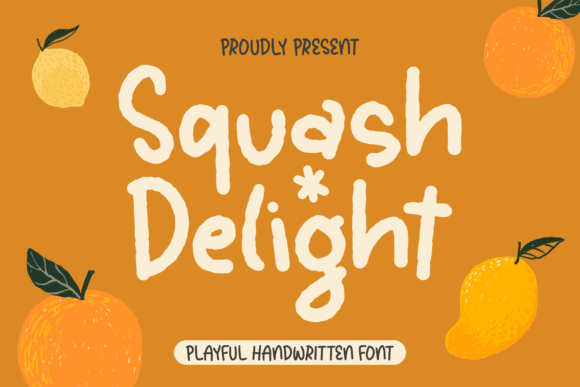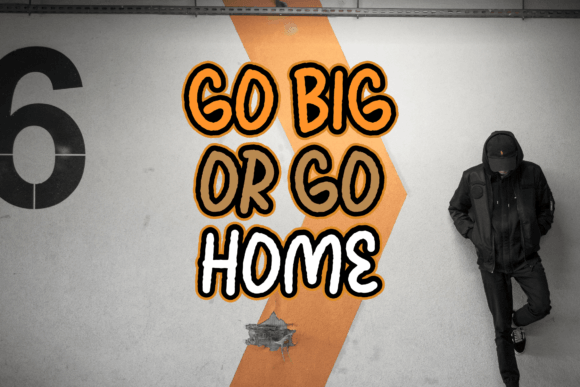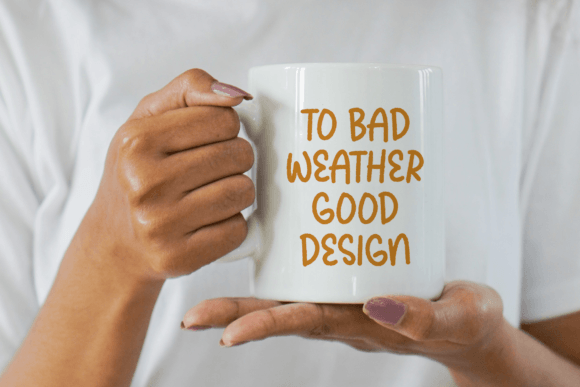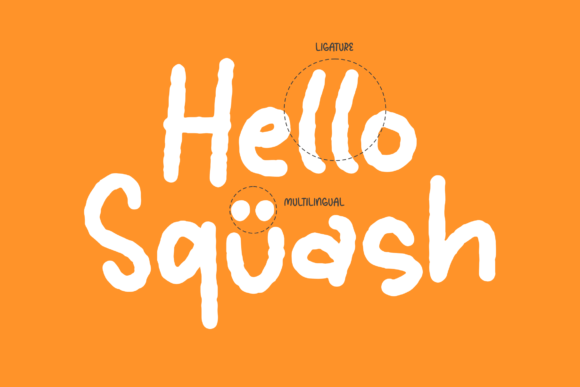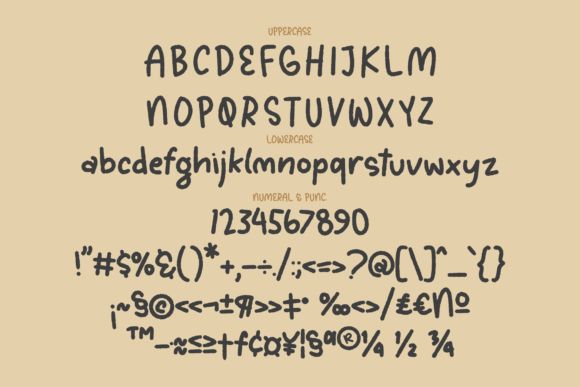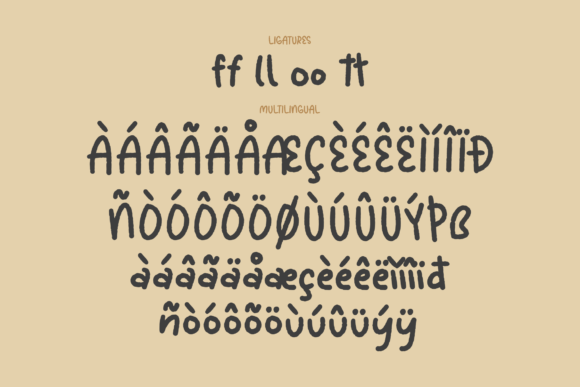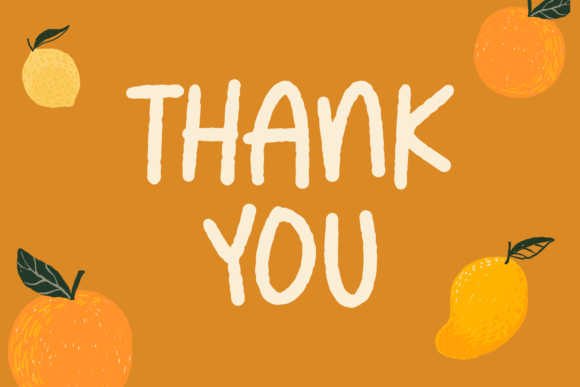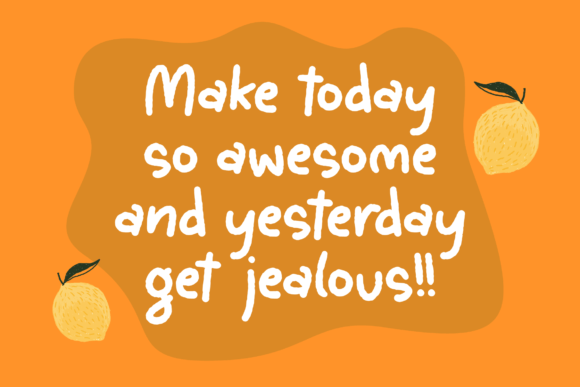
About Squash Delight Font
“Squash Delight” is a charming and playful handwritten font crafted to bring a sense of delight and creativity to your projects. This versatile font is well-suited for a diverse range of applications, making it an ideal choice for logos, branding, homeware designs, product packaging, mugs, quotes, posters, shopping bags, T-shirts, book covers, name cards, invitation cards, greeting cards, labels, photography, watermarks, special events, and any other project that calls for a beautiful and playful script taste.
The allure of “Squash Delight” lies in its playful and handcrafted script, injecting a delightful and spirited touch into your designs. Whether you’re creating a logo that demands a whimsical vibe or designing product packaging that requires a playful script font, “Squash Delight” adds a unique and beautiful script taste to your projects.
This font’s versatility is evident in its adaptability to various design applications. From homeware designs to T-shirts and book covers, “Squash Delight” brings a sense of joy and creativity, making your designs visually appealing and engaging.
The application of “Squash Delight” in special events, invitations, and greeting cards infuses a playful and charming essence into these occasions. The font’s whimsical nature makes it perfect for projects where you want to convey a lighthearted and fun atmosphere.
Embrace “Squash Delight” as your preferred font for all your lovely projects, and experience how it infuses a playful script taste into your designs. With its whimsical and handwritten characteristics, this font is an excellent choice for projects that seek to embody spontaneity and a touch of creative flair. Let “Squash Delight” be the key to adding delight and playfulness to your creative endeavors.